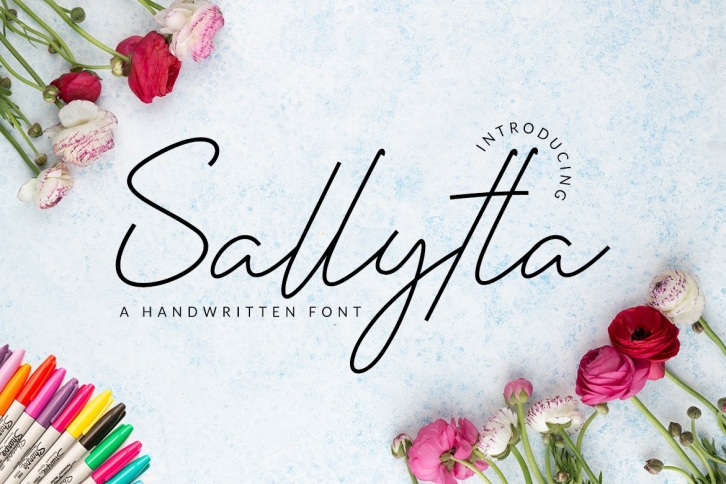
Sallytta is a trendy and unique font with an authentic style. It was designed by Koplexs Studio 01 and it's a great choice for creative people who need such a font. It was released on November 4, 2020 and the file size is 17.86 MB. Sallytta will add an organic vibe to any design idea!